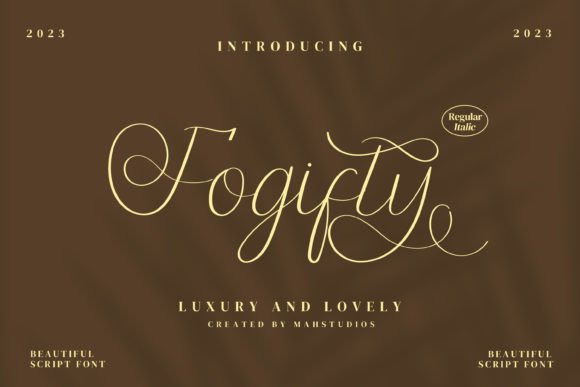
Embrace the beauty of handwritten artistry with Fogifty Font, an enchanting creation from mahstudios. Designed for the modern era, this script font weaves a tale of elegance and creativity, inviting you to embark on a typographic journey like no other.
Step into a world where letters dance on the page, mirroring the graceful strokes of a skilled calligrapher. Fogifty's delicate hairlines and sweeping flourishes bring a touch of whimsical wonder to your designs, adding a personal touch that captivates and inspires.
From the intricate swashes to the elegantly crafted terminals, Fogifty's every detail speaks of artistry and finesse. Its versatile nature allows it to adapt seamlessly to various projects, whether you're creating wedding invitations, crafting logos, designing social media graphics, or simply adding a touch of charm to your digital projects.
With Fogifty Font, you'll find endless possibilities to express yourself. Its harmonious flow and effortless style make it perfect for adding a touch of luxury to your designs, evoking a sense of sophistication and elegance.
Embrace the allure of Fogifty Font, the script that dances on the page, and redefine the boundaries of typographic beauty. Let your creativity soar as you weave your words into works of art, captivating your audience with the exquisite charm of Fogifty's enchanting embrace.